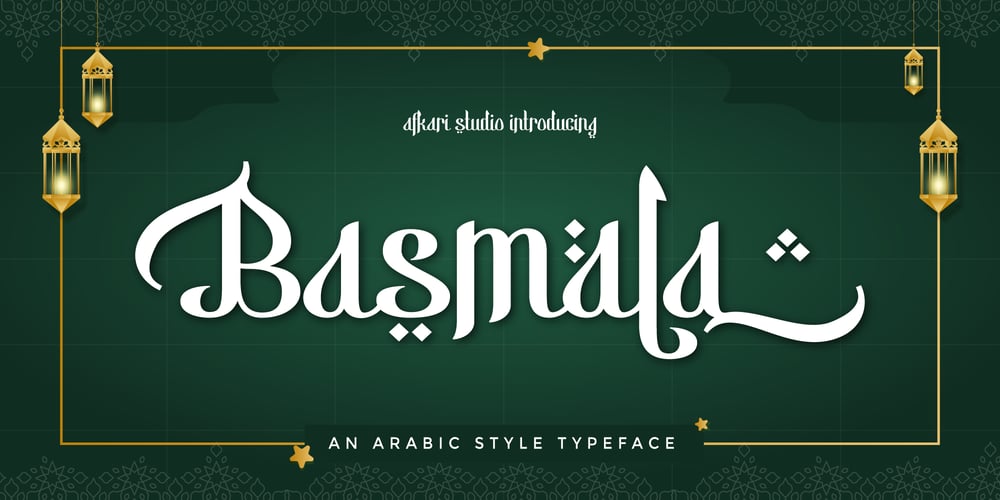
Basmala
Basmala font
Basmala Font Family was designed by Musthafa Kamal Emje and published by Afkari Studio. Basmala contains 1 styles and family package options. Basmala – An Arabic Style TypefaceNEW Ramadhan and Islamic font, Basmala, is an Arabic-styled display typeface. This Islamic Ramadhan Arabic font is perfect for any graphic design related to the Islamic style. You will get an Arabic feel to every text you type using this font. Made with Latin characters so that it can be read internationally which does not have to be able to read Arabic charactersThis Islamic font is suitable for branding, product packaging, quotes, flyers, posters, logotype, apparel, T-shirt, Hoodie, book covers, movie title, advertising, and more. Features;- Uppercase, Lowercase, Number, and Punctuation- Special Alternates and ligatures- Works on PC & Mac- Simple installations- Accessible in Adobe Illustrator, Adobe Photoshop, Adobe InDesign, even work on Microsoft Word- Fully accessible without additional design software.- Mültîlíñgúãl Sùppört for; ä ö ü Ä Ö Ü ß ¿ ¡Hope you enjoy our font and this font is useful font for your projects!